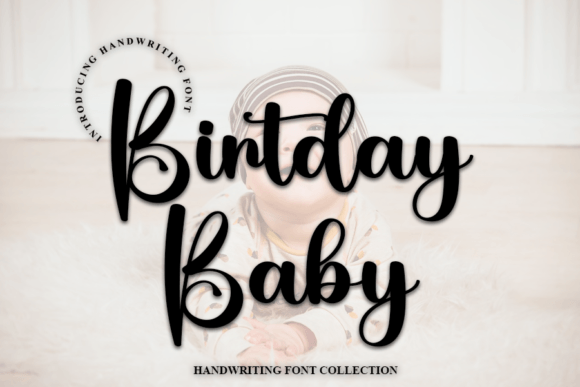
The Birth of a New Favorite: Discovering the Birthday Baby Font
I’ll never forget the design project that led me to discover the Birthday Baby font. I was working on a custom greeting card for a friend’s birthday, and I was struggling to find the perfect handwritten script font. The design brief was simple: create something warm, modern, and playful. I scoured font libraries, but nothing seemed quite right – until I stumbled upon Birthday Baby. ✨
After spending hours with the Birthday Baby font, here’s my honest review:
- ✅ Unique yet legible: This font strikes a perfect balance between personality and readability.
- ✨ Modern feel: The clean lines and subtle variations give it a fresh, contemporary look.
- 🎨 Versatile: Whether you’re designing for crafts, digital media, or presentations, Birthday Baby adapts beautifully.
- 💕 Emotional connection: The handwritten nature of this font makes it perfect for projects that require a personal touch.
As for quirks, I did notice a couple of things to keep in mind:
- ⚠️ Limited character set: While the font includes a range of characters, it might not have every special character or glyph you need.
- 🤔 Kerning adjustments: Depending on your design, you might need to tweak kerning to ensure optimal spacing.
The Story Behind Birthday Baby: Designer Inspiration
While the exact origins of Birthday Baby are unclear, it’s easy to imagine a designer sitting down with a pen and paper, aiming to create a font that’s both modern and personal. Perhaps the goal was to craft a script that feels like a handwritten note from a friend – warm, inviting, and full of character. The result is a font that’s perfect for birthdays, celebrations, or just adding a touch of personality to your designs.
Q: What makes Birthday Baby a good choice for digital designs?
A: Its clean lines, modern feel, and legibility make it perfect for digital media, from social posts to website headers.
Q: How does Birthday Baby compare to other script fonts?
A: Birthday Baby stands out for its balance of modernity and warmth. It’s less formal than some scripts but more elegant than casual fonts.
Q: Is Birthday Baby suitable for body text?
A: While it’s primarily designed for headings and short text, Birthday Baby’s readability makes it possible to use for longer passages if needed.